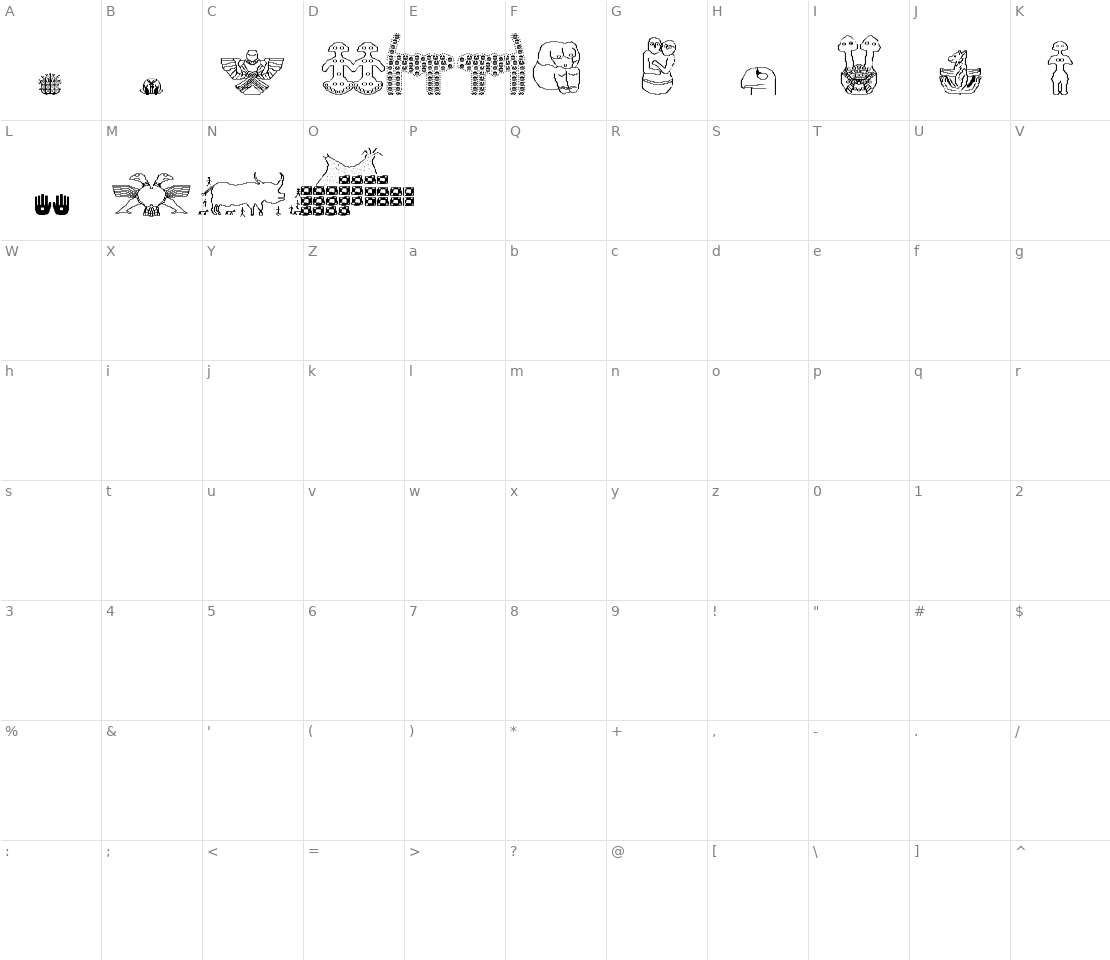
Anadolu
Anadolu is a symbol font by birisi featuring outline-style glyphs inspired by ancient Anatolian and Hittite motifs, the kind of pictographic forms you'd find on archaeological artifacts and carved reliefs from Bronze Age Anatolia. It's not a text face but a collection of decorative cultural symbols, useful for historical publications, museum design, educational materials, or adding authentic ancient Near Eastern ornamentation to a layout.